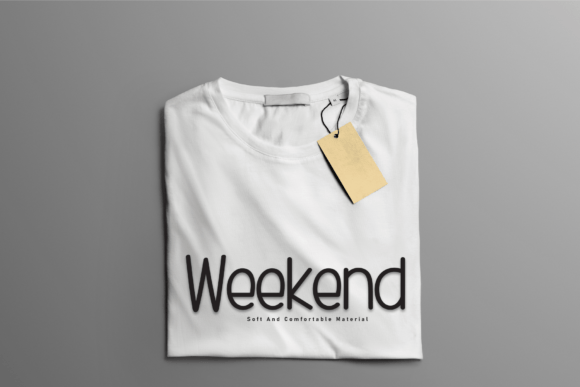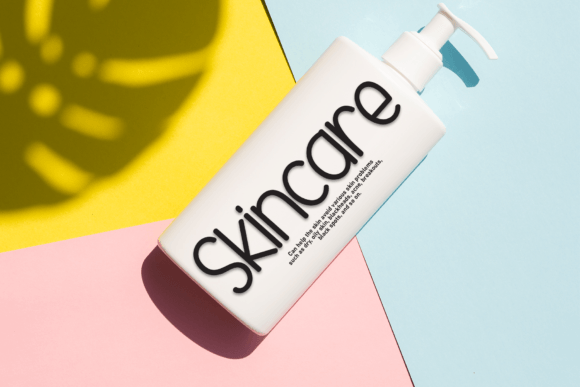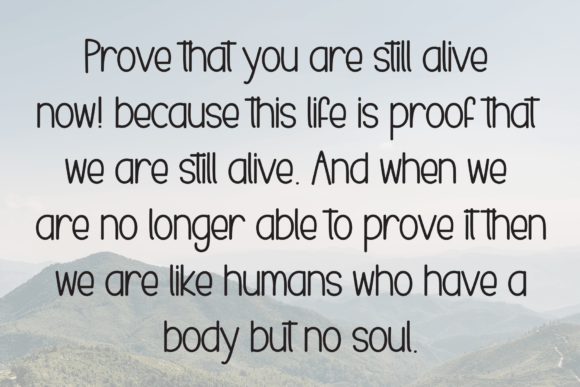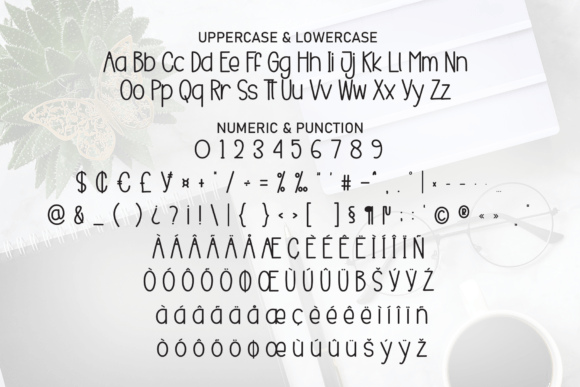
Introducing Happy Monday Font: The Perfect Addition to Your Design Projects
Are you tired of using the same old fonts in your design projects? Do you want to add a touch of personality and whimsy to your creations? Look no further than Happy Monday Font, a playful, handwritten font that’s sure to bring a smile to your face. With its cheerful, relaxed style and bouncy letters, Happy Monday Font is the perfect way to add a fun and personal touch to your projects.
What is Happy Monday Font?
Happy Monday Font is a unique and charming font that’s designed to evoke a sense of happiness and friendliness. Its handwritten style gives it a personal and approachable feel, making it perfect for use in a variety of design projects, from social media graphics and blog posts to invitations and crafts.
Key Features of Happy Monday Font
- Playful and handwritten style: Happy Monday Font features a playful, handwritten style that’s perfect for adding a touch of personality to your designs.
- Cheerful and relaxed vibe: The font’s cheerful and relaxed vibe makes it perfect for use in designs that require a friendly and approachable tone.
- Bouncy letters: The font’s bouncy letters add a sense of energy and movement to your designs, making them more engaging and eye-catching.
- Easy to read: Despite its playful style, Happy Monday Font is easy to read, making it perfect for use in designs that require a clear and concise message.
How to Use Happy Monday Font
Happy Monday Font is a versatile font that can be used in a variety of design projects, including:
- Social media graphics: Add a touch of personality to your social media graphics with Happy Monday Font.
- Blog posts: Use Happy Monday Font to add a playful touch to your blog posts and make them more engaging.
- Invitations: Happy Monday Font is perfect for use in invitations, such as birthday party invitations, baby shower invitations, and more.
- Crafts: Use Happy Monday Font to add a personal touch to your crafts, such as handmade cards, gift tags, and more.
Benefits of Using Happy Monday Font
Using Happy Monday Font in your design projects offers a range of benefits, including:
- Unique and eye-catching designs: Happy Monday Font is a unique and eye-catching font that’s sure to make your designs stand out.
- Personal touch: The font’s handwritten style adds a personal touch to your designs, making them more relatable and engaging.
Tips for Using Happy Monday Font
Here are some tips for using Happy Monday Font in your design projects:
- Use it sparingly: While Happy Monday Font is a fun and playful font, it’s best to use it sparingly to avoid overwhelming your designs.
- Pair it with other fonts: Happy Monday Font pairs well with other fonts, such as sans-serif fonts, to create a visually appealing design.
- Experiment with colors: Happy Monday Font looks great in a range of colors, so don’t be afraid to experiment and find the perfect color for your design.
Happy Monday Font is a playful, handwritten font that’s perfect for adding a fun and personal touch to your design projects. With its cheerful, relaxed style and bouncy letters, it’s sure to bring a smile to your face. Whether you’re a designer, crafter, or simply someone who loves to create, Happy Monday Font is a great addition to your font collection.